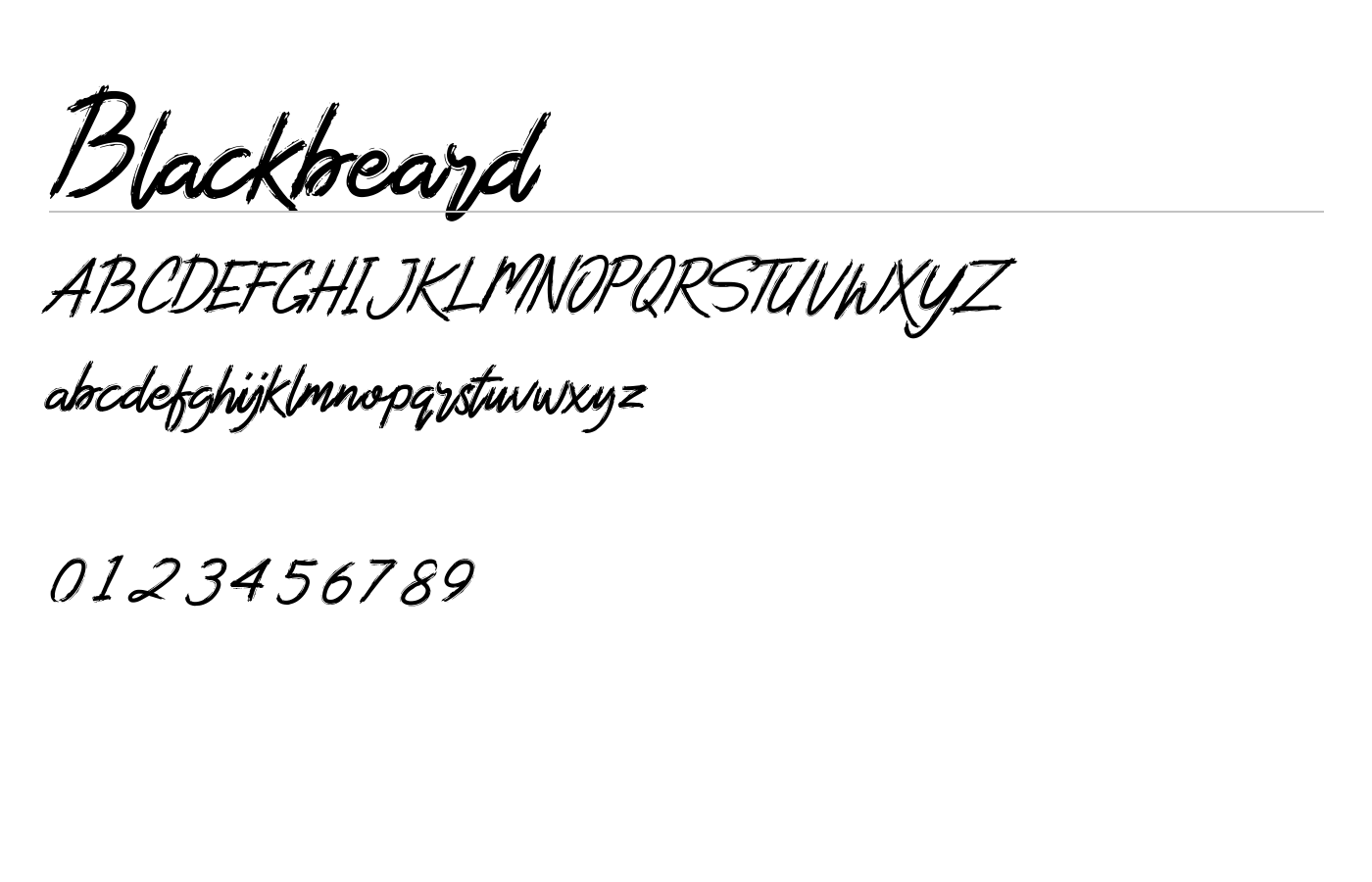
Blackbeard is a dynamic and expressive script font with a bold, brushstroke texture that gives it a hand-painted, energetic feel. Its slightly slanted, irregular letterforms create a sense of movement and creativity, making it perfect for designs that want to convey a casual, artistic, or adventurous vibe. This font works well for logos, posters, and branding that aim to stand out with a personal and lively touch.
Blackbeard Font
About Blackbeard Font
| Font family | Blackbeard Font |
| Designer | Almeerastudio. 2018 |